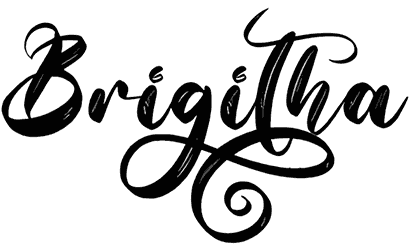
Brigitha Font
Brush fonts can be suitable for a large range of text-based layouts, to give you an idea; business cards, logos, flyers, and so many more. Brigitha gives your layouts a classy look and captures every client’s attention. Give it a try now and if you wish to access more, discover our website.